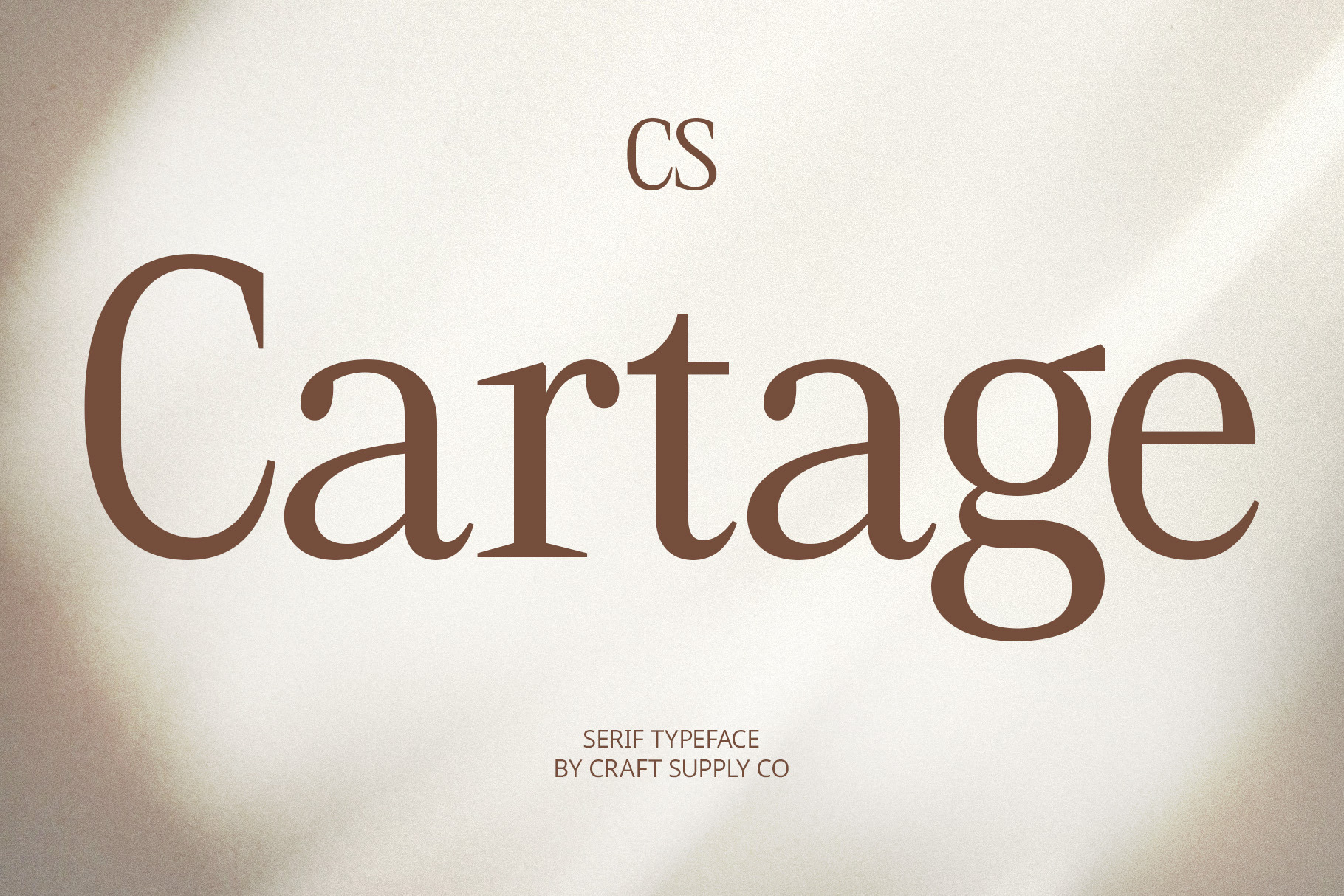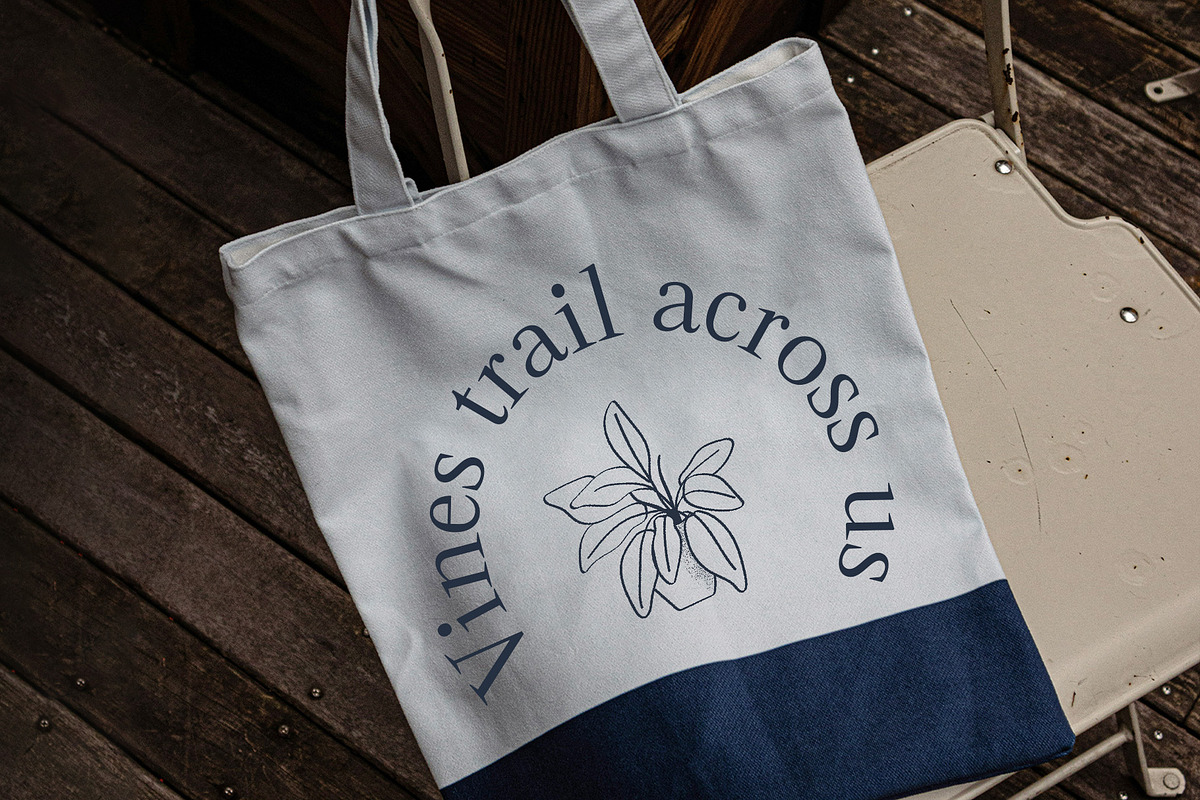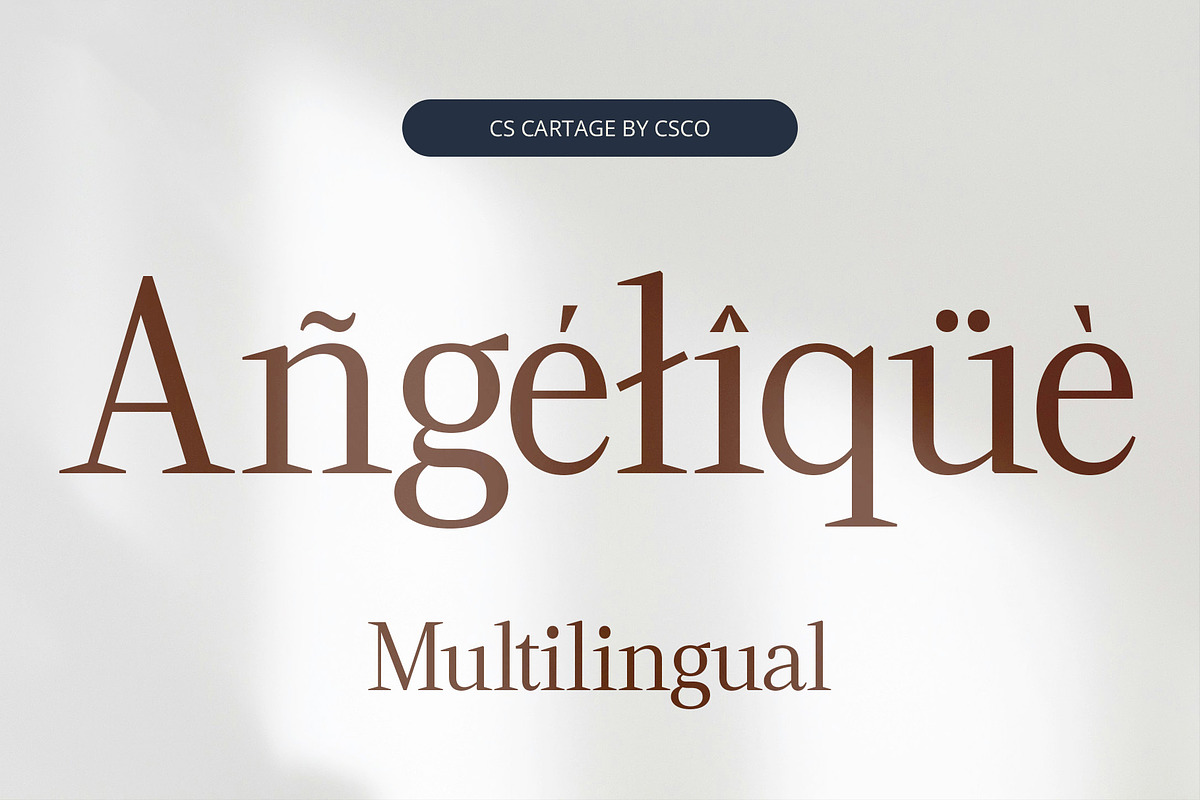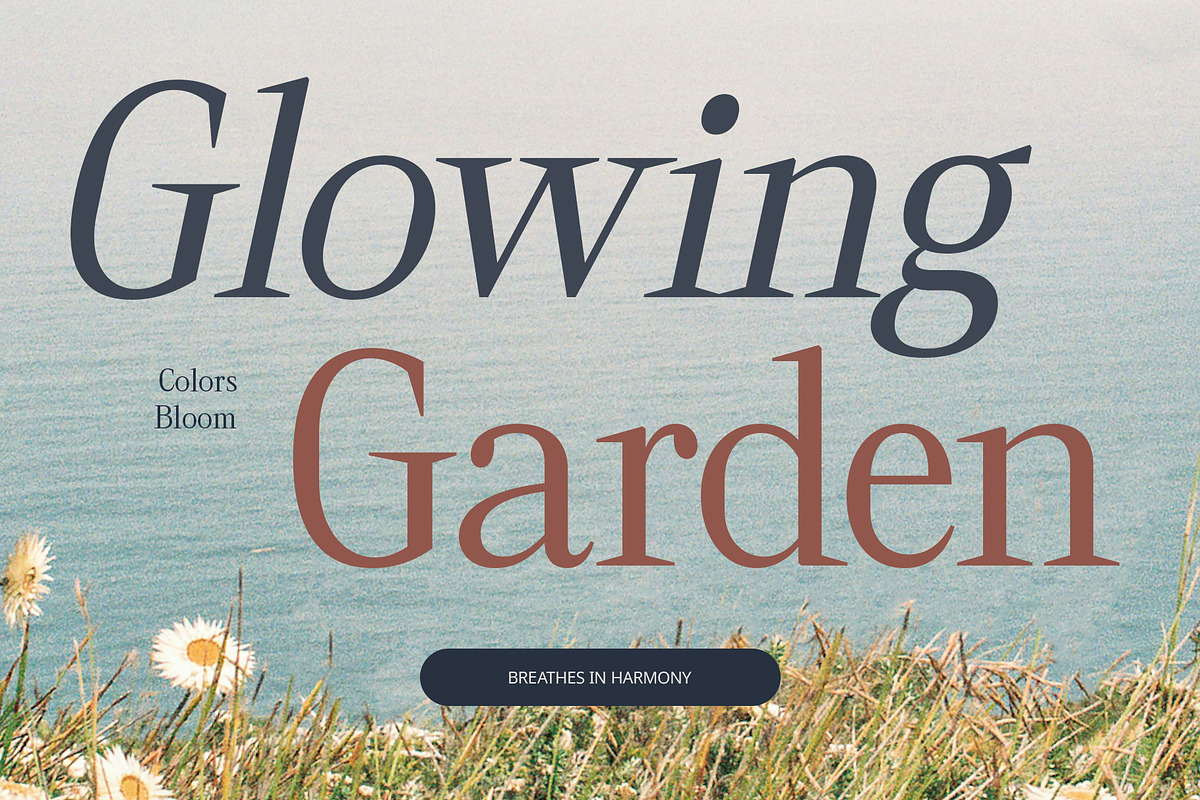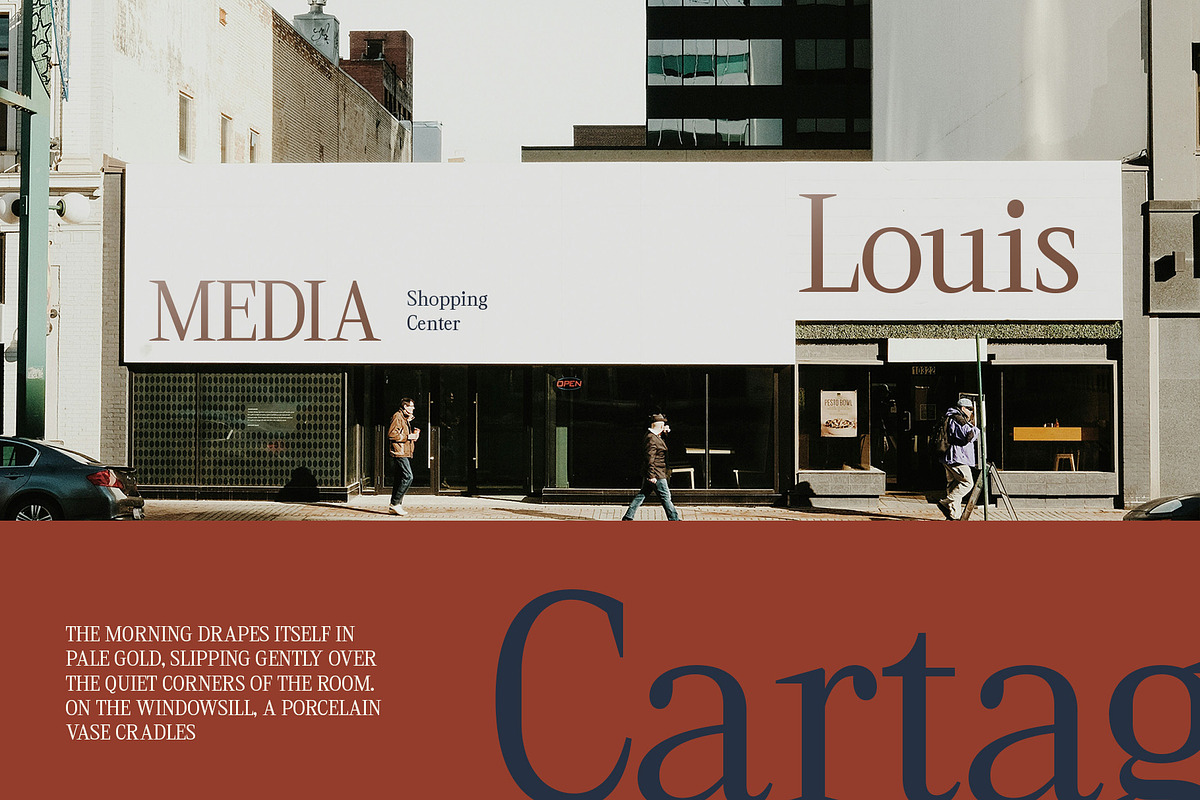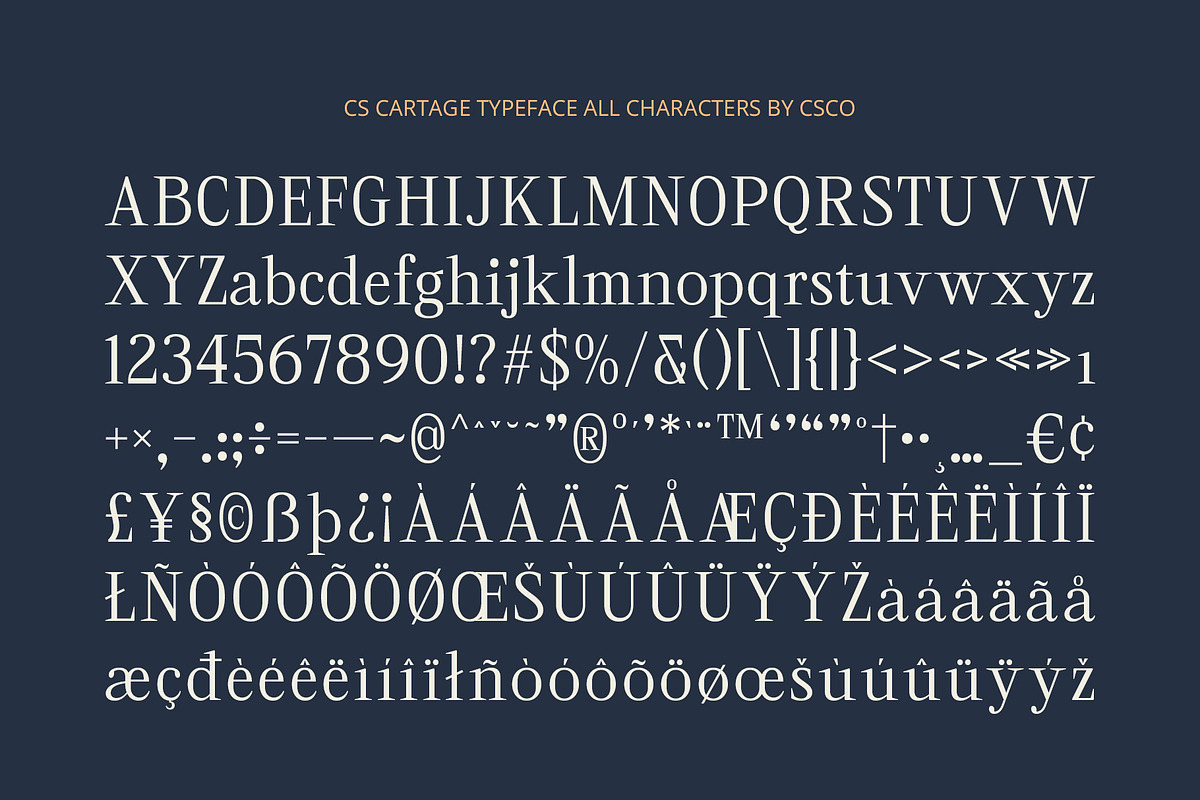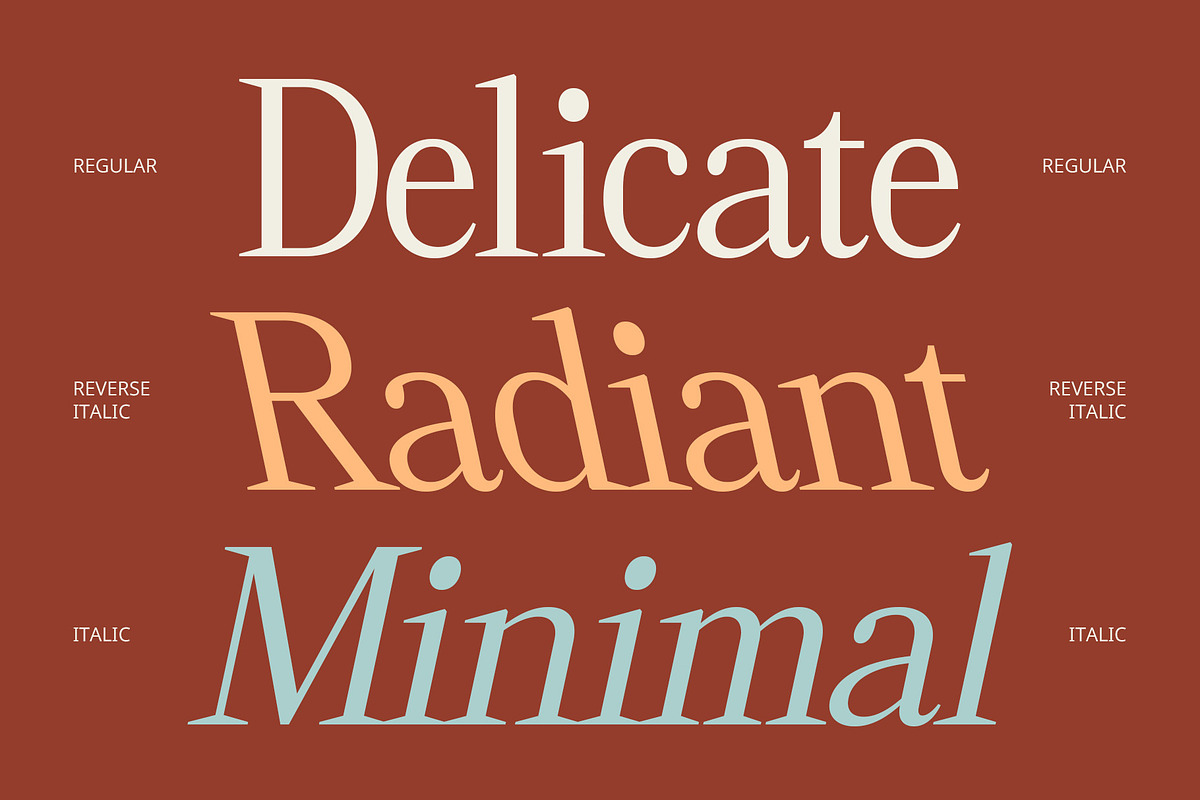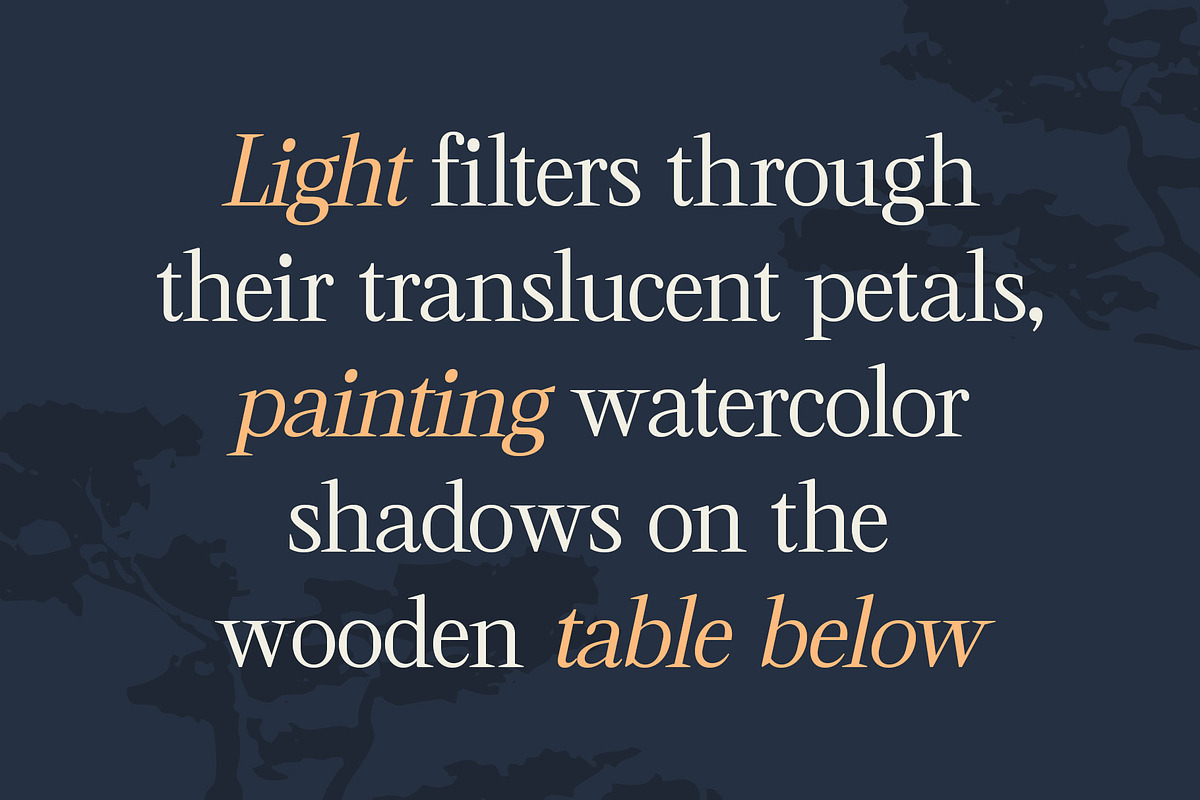
CS Cartage – Contemporary Font
CS Cartage – Contemporary Font: Where Modern Clarity Meets Classic Elegance
Balanced Structure for Sophisticated Readability CS Cartage is a modern serif font that features a slim, clean structure designed with precision and balance. Each letterform is carefully crafted to offer maximum legibility while exuding a refined aesthetic—perfect for conveying professionalism and trust.
Contemporary Meets Classic While firmly rooted in modern design principles, CS Cartage retains subtle hints of classic serif elegance. Though rooted in a contemporary aesthetic, CS Cartage retains subtle touches of traditional serif charm. This fusion results in a timeless visual identity—ideal for creatives seeking a modern typeface that still carries the elegance and familiarity of classic design. It’s a font that bridges old and new, delivering style with substance.
Versatile for Professional Use Whether used in corporate branding, editorial layouts, presentations, or packaging design, CS Cartage stands out with its graceful form. Its versatility shines in everything from minimalist product labels to luxurious brand identities, adapting seamlessly to a range of modern design needs without losing its sophistication.
Stylish Presence Across Applications CS Cartage delivers a stylish and contemporary look without sacrificing clarity or sophistication. It’s the go-to choice for designers seeking a serif font that communicates stability, elegance, and modern sensibility across a broad range of visual projects.
- CS Cartage Regular
- CS Cartage Italic
- CS Cartage Reverse Italic